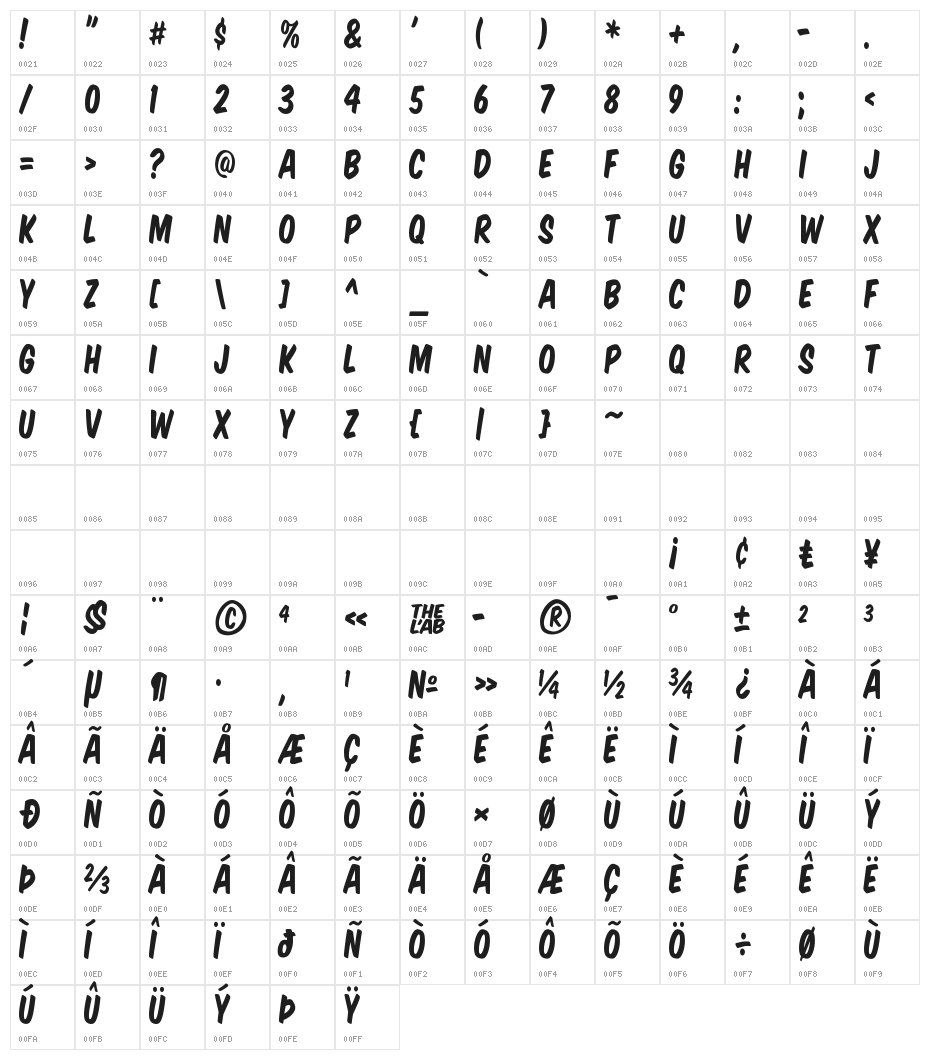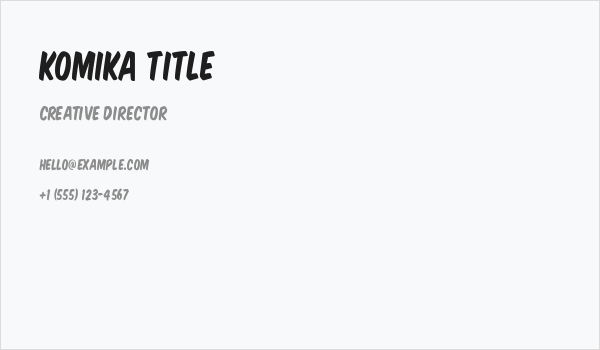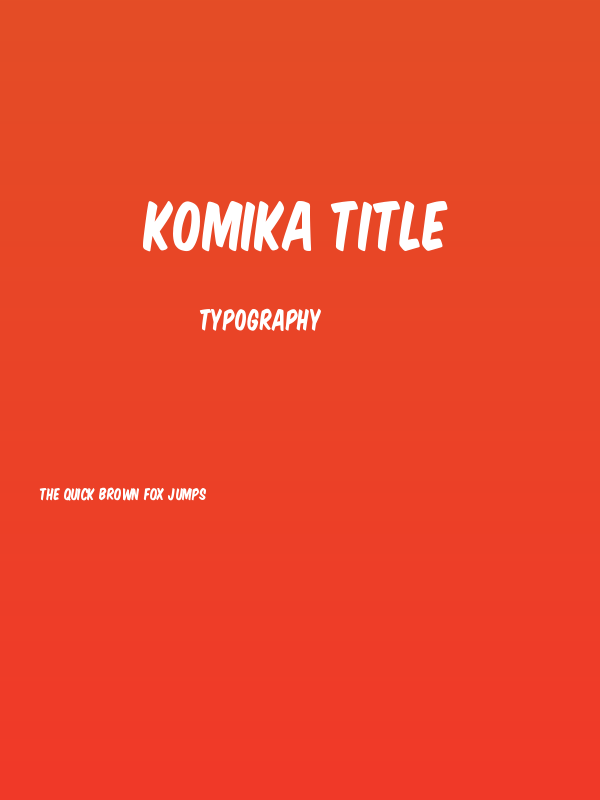
Komika Title Font
Komika Title Description
This font features a bold and playful style with a hand-drawn aesthetic. The letters are slightly slanted, giving a dynamic and energetic feel. The strokes are thick and consistent, providing a strong visual impact. The characters have a casual and informal appearance, making them suitable for fun and creative projects. The numbers and special characters maintain the same lively and bold design, ensuring consistency across all elements.
| Proposed Projects | Ideal for comic books, children's books, posters, and playful branding. |